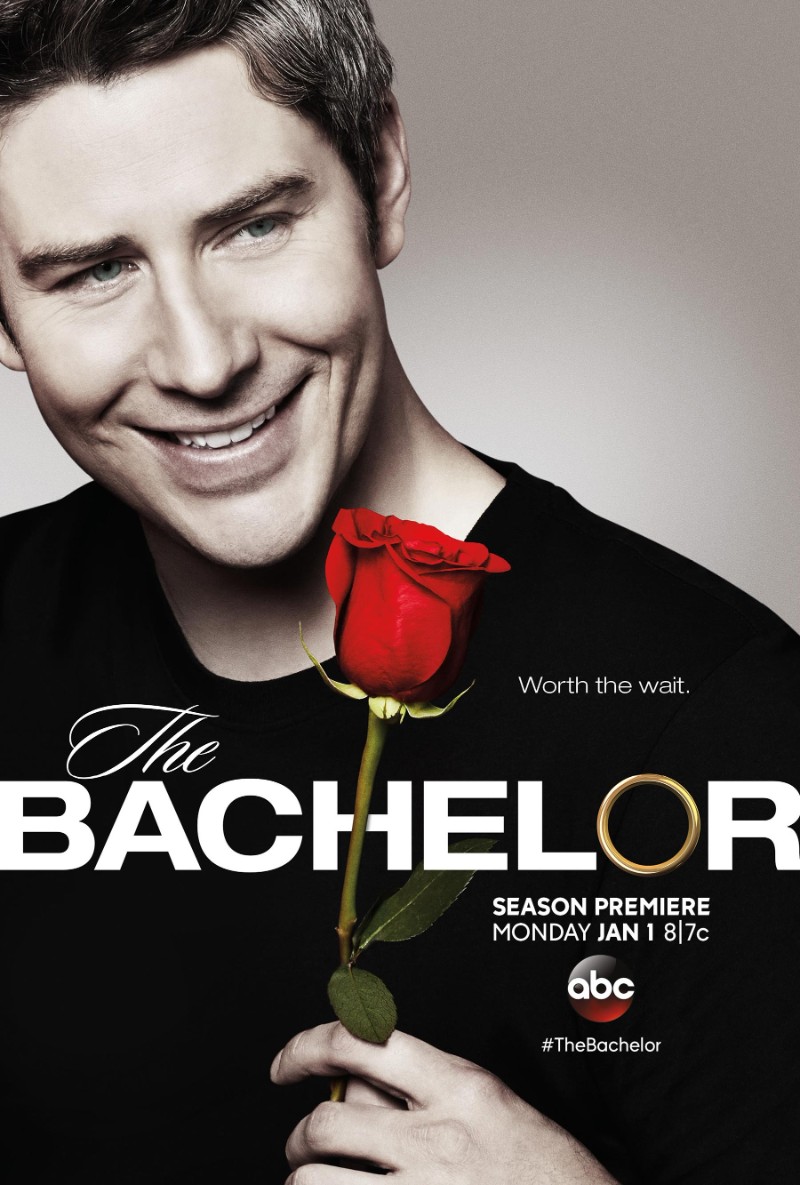
The Bachelor Font
Fonts in UseThe Bachelor is a reality television dating show where a single man meets and dates multiple women over the course of several weeks, with the goal of finding a romantic partner and potentially proposing at the end. It has been airing since 2002 and has led to numerous spin-offs and controversies.
The reality show's logo comprises two different typefaces. The first typeface is Neue Helvetica Bold Extended, which is a sans-serif font, while the second one is Sloop Script, designed by Richard Lipton and released through Font Bureau in 1994.